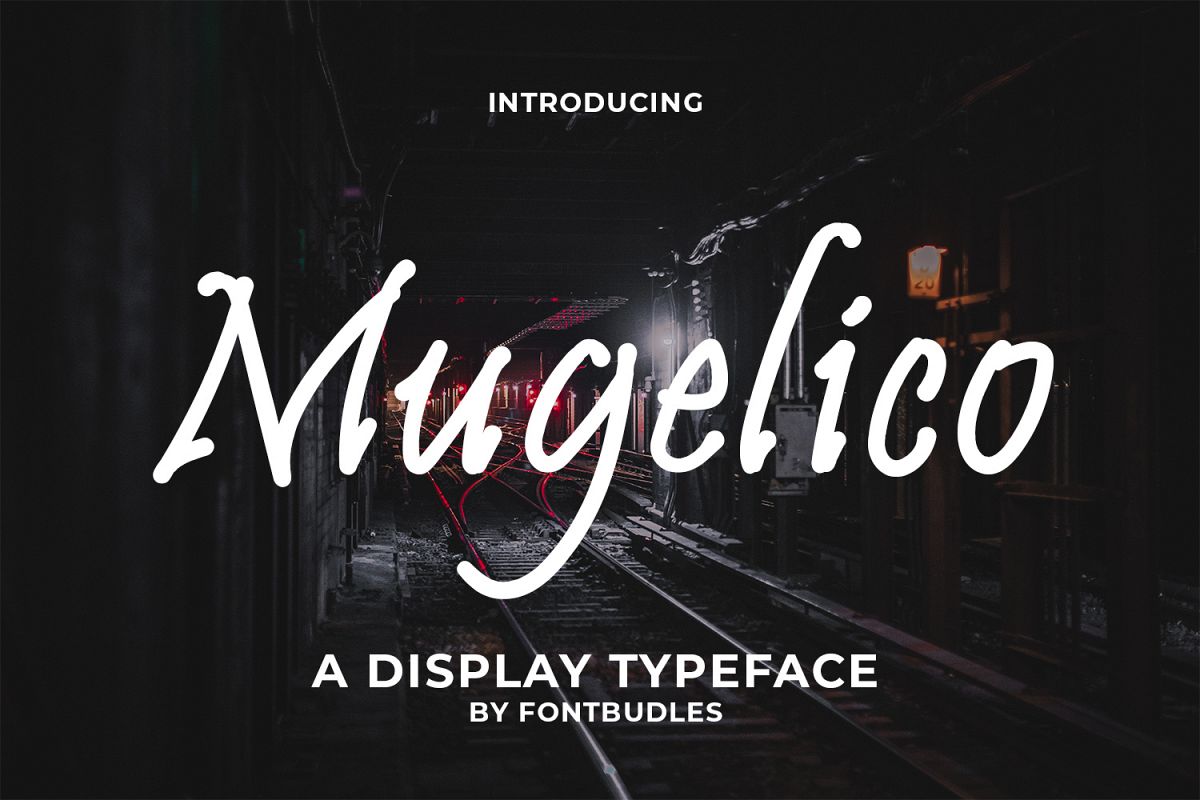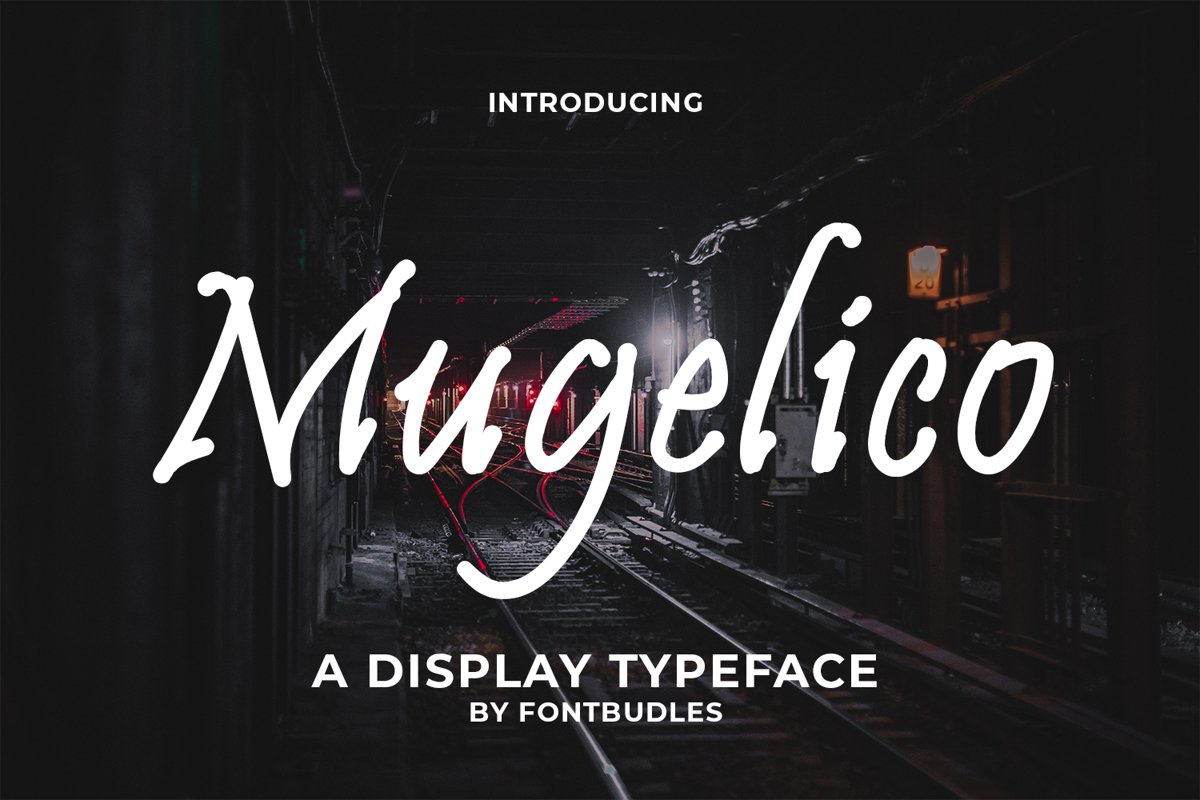
Mugelico
Mugelico is a Display Typeface. Perfect for display, logotype, logo, badges, labels, merchandise, poster, packaging, name card, business card, header, tittle, t-shirt design, and many more.